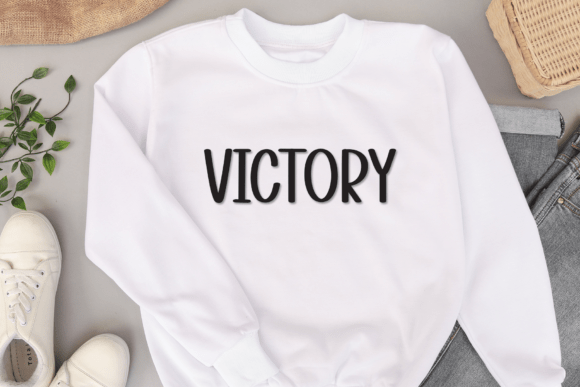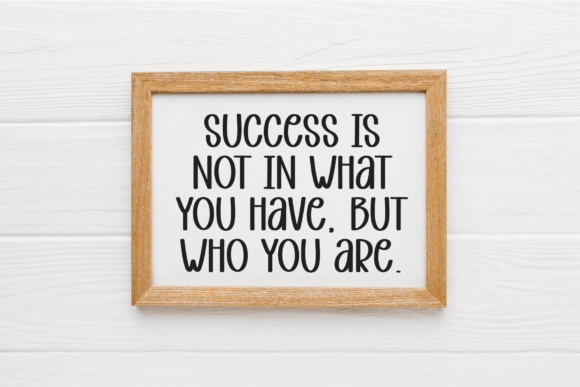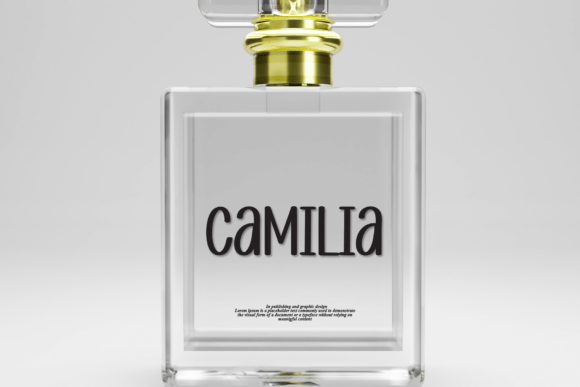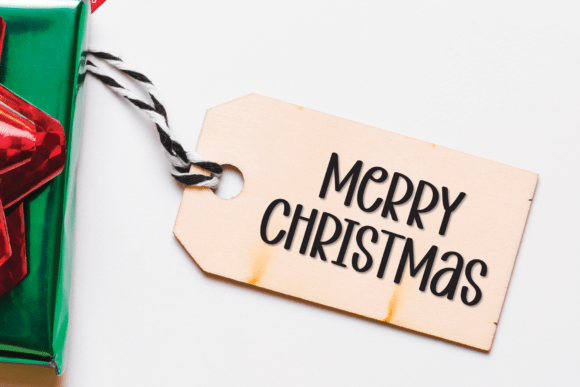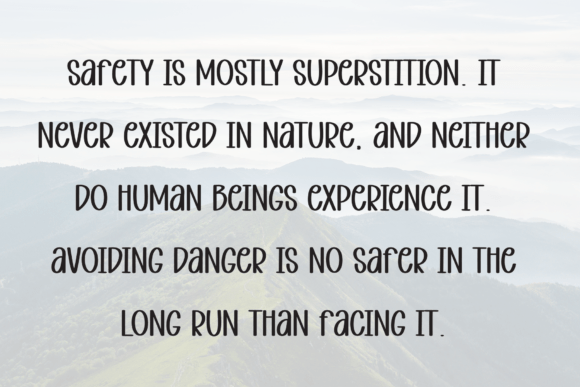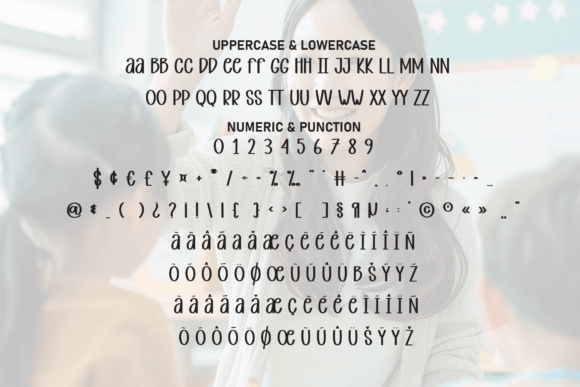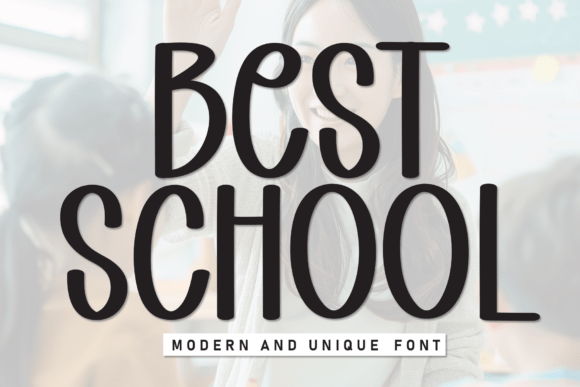
Discover the Best School Font for Your Design Needs
Are you on the hunt for a font that embodies the perfect blend of modern simplicity and playful charm? Look no further than the Best School font. This casual display font is designed to bring a fresh and friendly touch to any project, making it an ideal choice for designers and crafters alike. In this article, we’ll dive into the world of Best School font, exploring its features, benefits, and uses, as well as provide tips on how to make the most of this versatile typeface.
What is Best School Font?
Best School is a carefully crafted display font that combines clean shapes, soft edges, and well-balanced letterforms to create a unique and captivating visual identity. Its modern simplicity and playful vibe make it perfect for a wide range of design applications, from posters and branding to packaging and social media graphics.
Key Features of Best School Font
- Clean Shapes: The Best School font boasts clean and simple shapes that provide a clear and elegant appearance, making it easy to read and understand.
- Soft Edges: The soft edges of the font add a touch of warmth and friendliness, giving it a unique and approachable feel.
- Well-Balanced Letterforms: The font’s well-balanced letterforms ensure that each character is harmonious and visually appealing, contributing to a cohesive and polished look.
- Modern Simplicity: The Best School font effortlessly blends modern simplicity with a playful vibe, making it perfect for designers seeking a fresh and contemporary look.
Benefits of Using Best School Font
The Best School font offers numerous benefits for designers and crafters, including:
- Versatility: Its casual display font style makes it suitable for a wide range of design projects, from posters and branding to packaging and social media graphics.
- Readability: The font’s clean shapes and well-balanced letterforms ensure excellent readability, even at smaller sizes.
- Personality: The Best School font adds a fresh and friendly touch to any project, allowing designers to inject personality and style into their work.
- Ease of Use: The font is easy to use and pairs well with a variety of other typefaces, making it a great addition to any design toolkit.
Best Use Cases for Best School Font
The Best School font is an excellent choice for a variety of design projects, including:
- Posters: Create eye-catching posters for events, promotions, or announcements with the Best School font.
- Branding: Use the font to develop a unique and memorable brand identity that stands out from the crowd.
- Packaging: Add a touch of personality to product packaging with the Best School font.
- Social Media Graphics: Create engaging social media graphics that showcase your brand’s personality and style.
Tips for Using Best School Font
To get the most out of the Best School font, follow these tips:
- Experiment with Font Sizes: Play with different font sizes to create visual hierarchy and emphasize key messages.
- Pair with Complementary Fonts: Combine the Best School font with complementary typefaces to add depth and interest to your designs.
- Use Color Effectively: Select colors that complement the font and enhance its friendly and approachable vibe.
- Keep it Simple: Don’t overcomplicate your design – the Best School font is designed to shine on its own, so keep your design clean and simple.
The Best School font is an exceptional choice for designers and crafters seeking a modern, playful, and versatile typeface. Its unique blend of clean shapes, soft edges, and well-balanced letterforms makes it perfect for a wide range of design applications. By incorporating the Best School font into your design toolkit, you’ll be able to add a fresh and friendly touch to any project, elevating your designs to the next level.